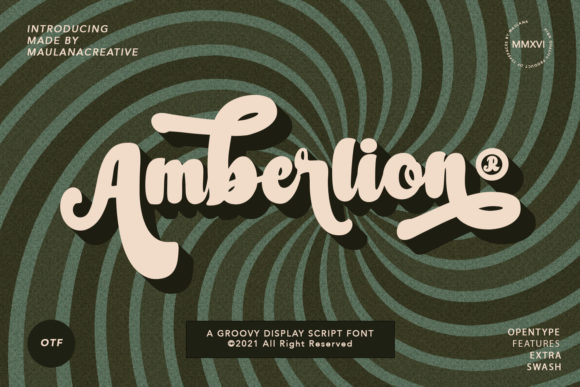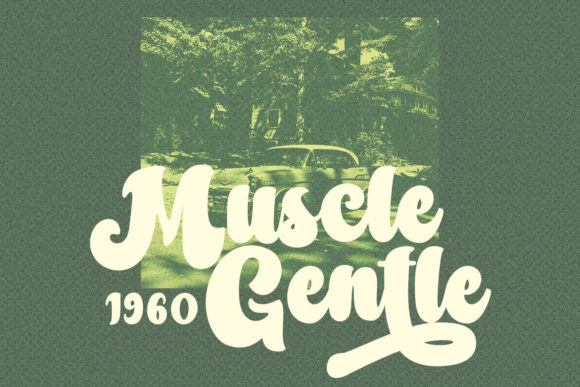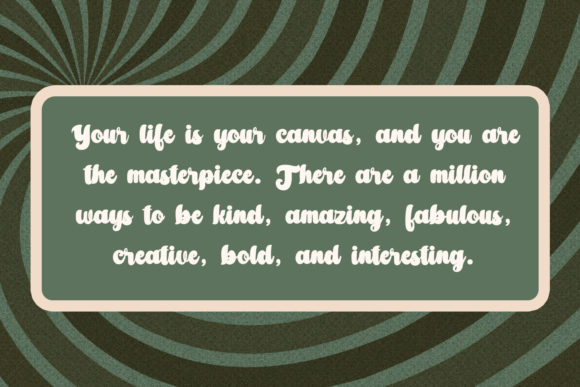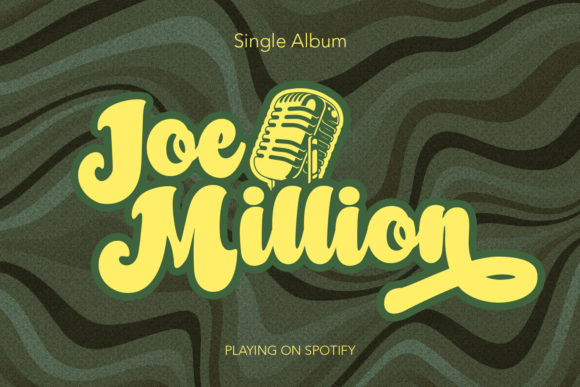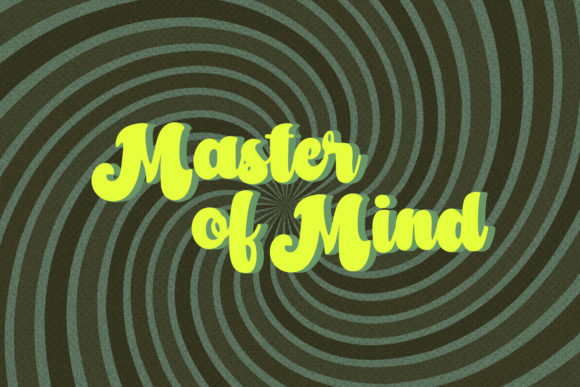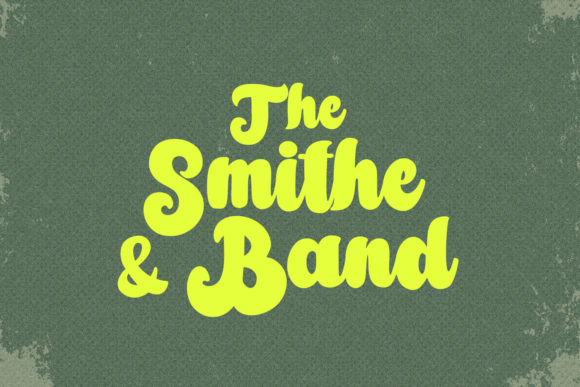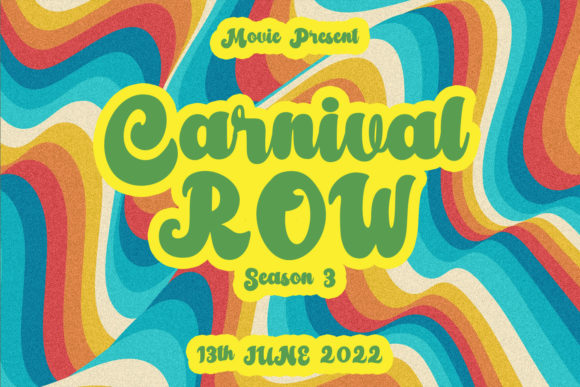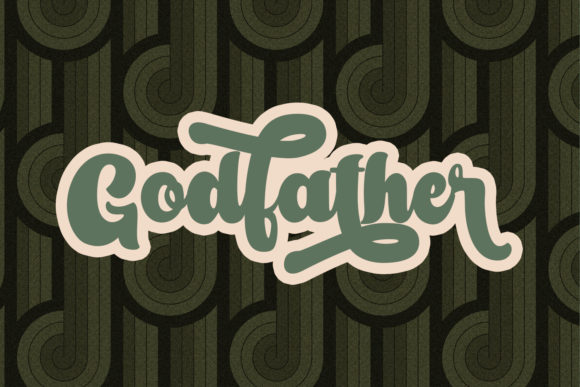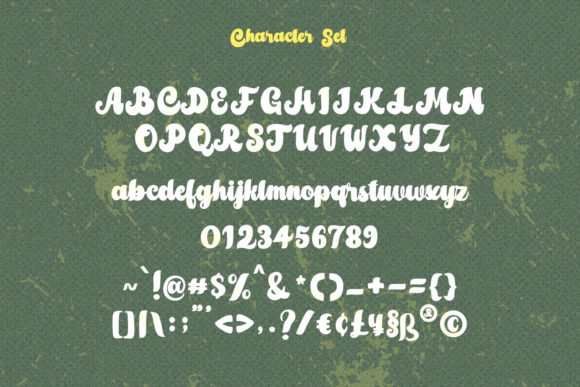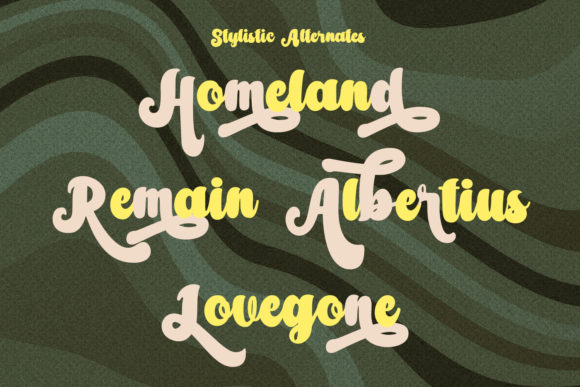
Amberlion Script Font
About Amberlion Script Font
Amberlion Script is a groovy, retro styled handwritten font, crafted to give your headlines and logotype projects a stylish touch. This font reads as strong, confident, and dynamic and can add tons of nostalgic character to your designs.